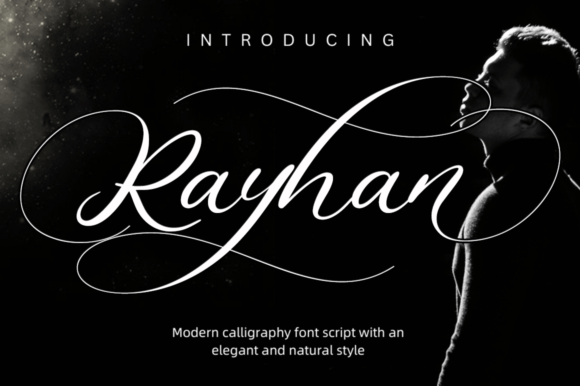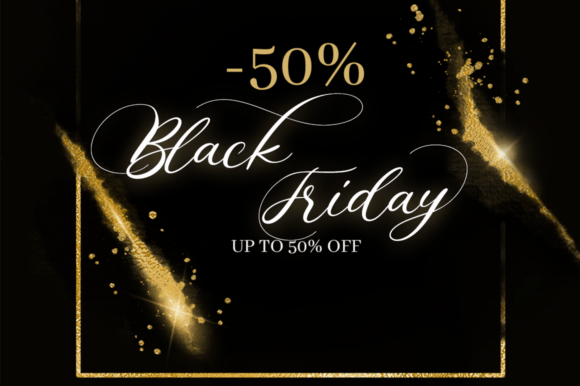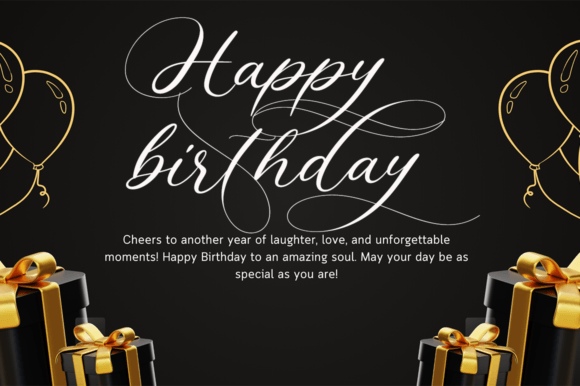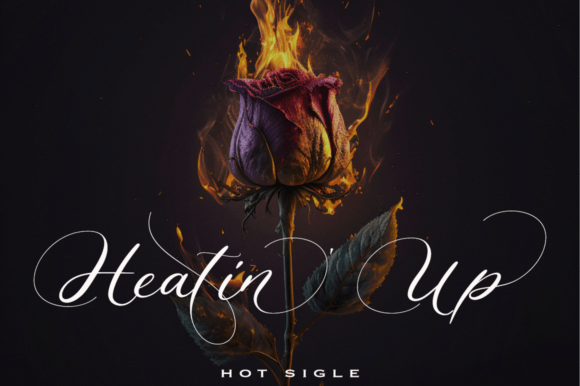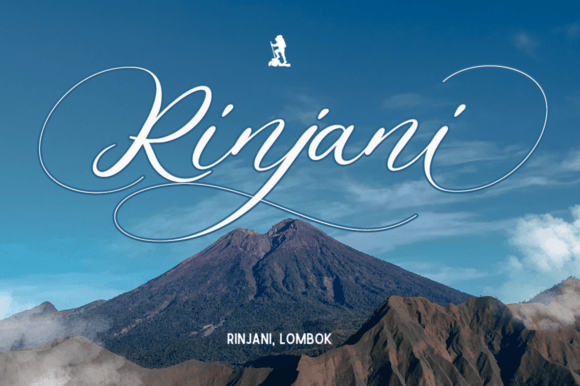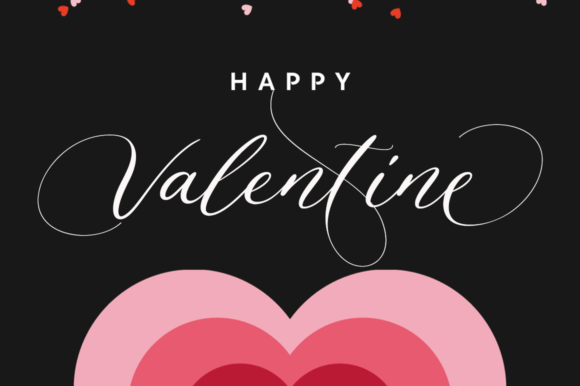
Introduction to Rayhan Font
Rayhan Script is a modern calligraphy design, including Regular.
This font is casual and beautiful with swash Can be used for various purposes.
Key Features of Rayhan Font